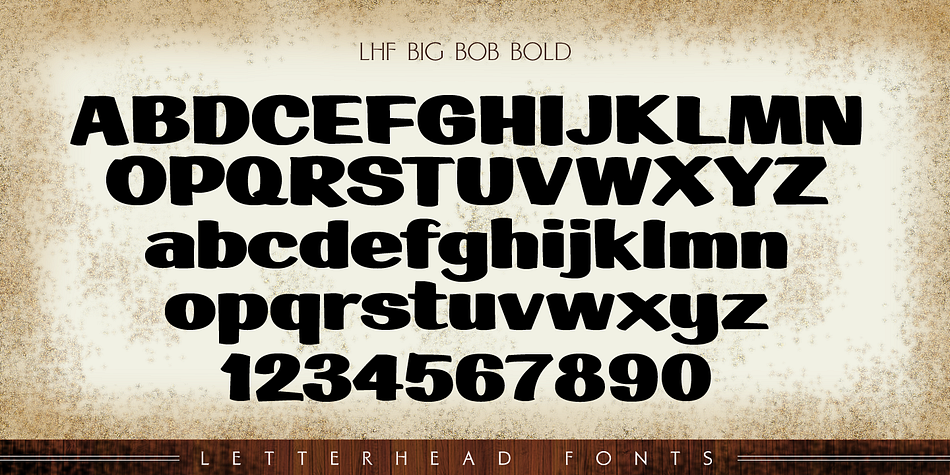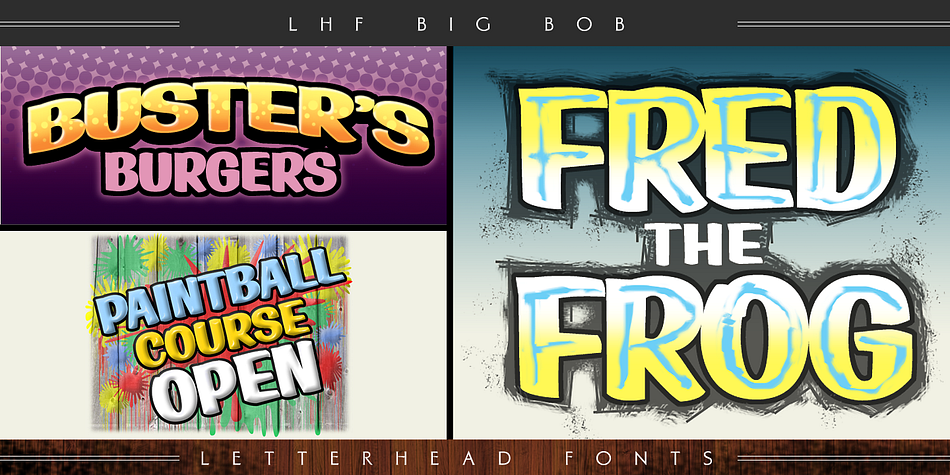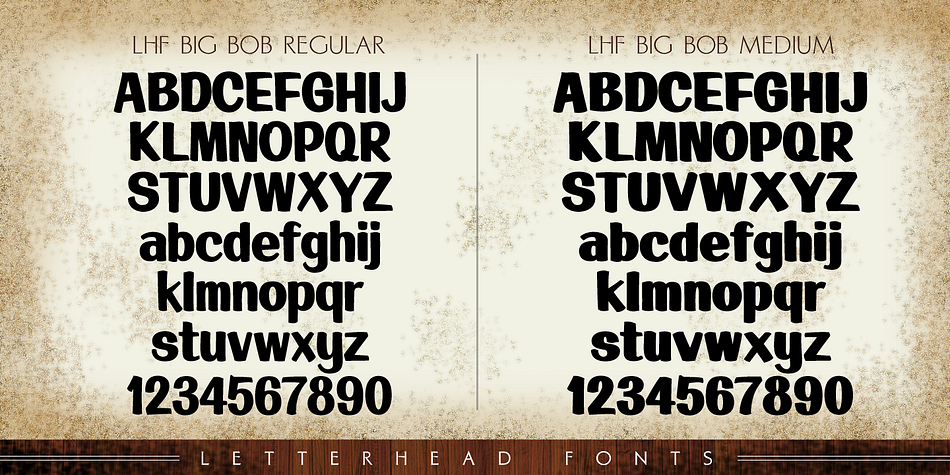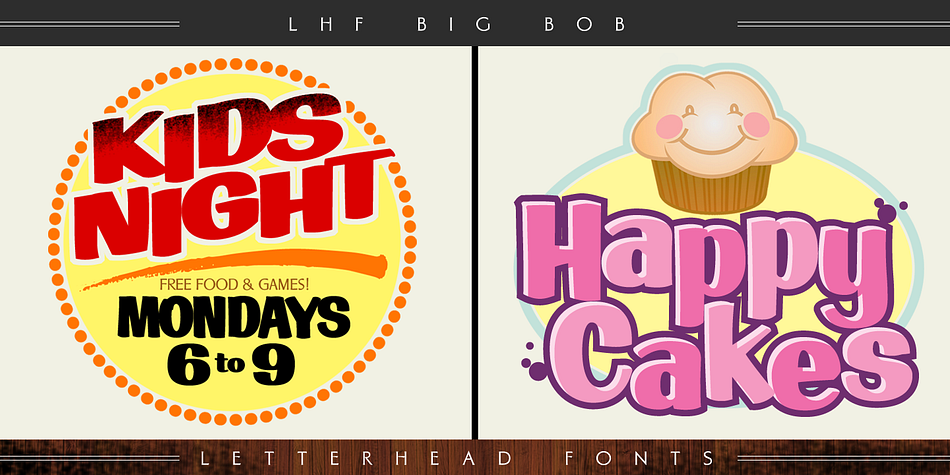
Designed by David Parr, LHF Big Bob is a display sans and kids font family. This typeface has three styles and was published by Letterhead Fonts.
Classic sign painter’s casual. Perfect for children’s books or light hearted designs. You receive all 3 fonts: Regular, Medium & Bold.